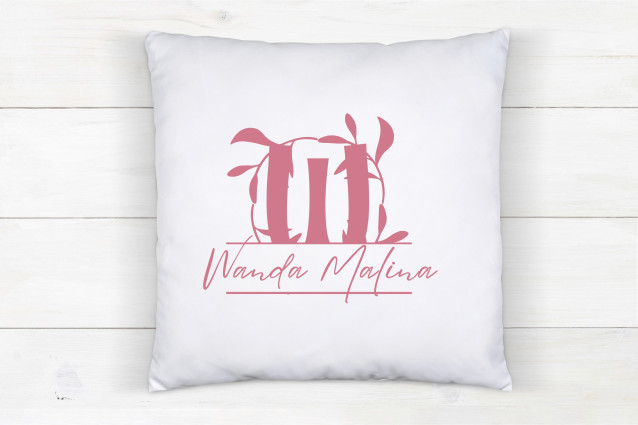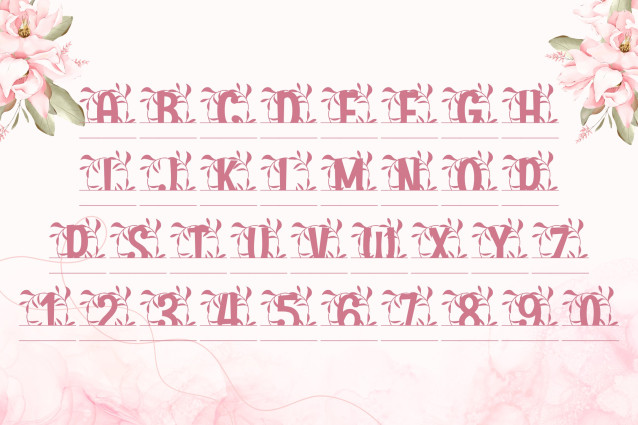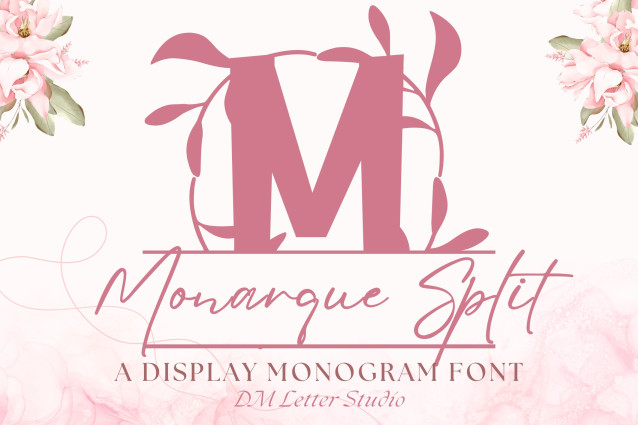
Monarque Split Monogram Font
Monarque Split Monogram Font is a sophisticated serif font designed with royal flair and personalization in mind. Each uppercase letter is crafted with regal detailing and a refined serif base, then divided with a clean horizontal split—allowing you to add names, dates, or custom text. This makes it ideal for weddings, luxury branding, boutique logos, packaging, and personalized crafts that need both elegance and flexibility.
The power of Monarque Split Monogram lies in its balance between timeless style and modern usability. The serif foundation ensures your designs remain structured and professional, while the split layout adds versatility for custom applications. Whether you are designing invitations, signage, gift tags, or Cricut/Silhouette projects, this font elevates your creations with a look of prestige.
Perfect for upscale design needs, Monarque Split Monogram adapts effortlessly to wedding stationery, luxury packaging, boutique branding, and elegant keepsakes. It allows you to achieve that refined “royal touch” while keeping your designs highly customizable.